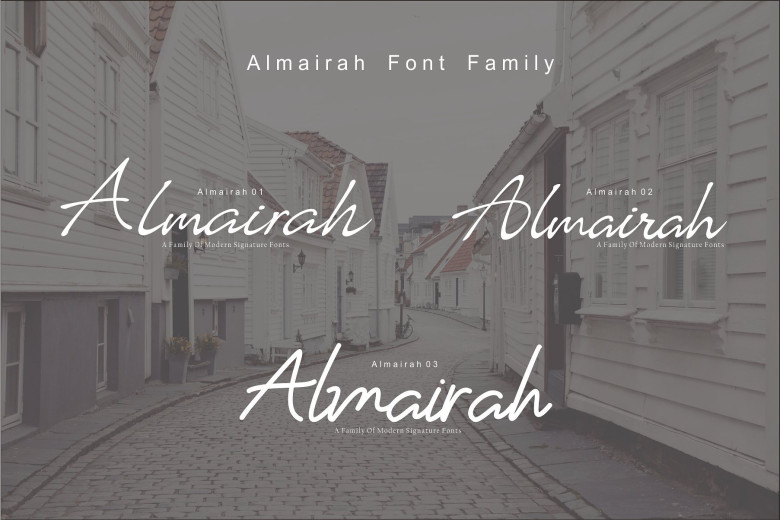
Almairah Script Font Family
A family of modern signature font. Introducing Almairah! It is designed and shared by Khoir. Almairah Family Font a classy signature font and there are three styling options. With freestyle flowing fonts this script looks elegant, classy, ​​easy to read, stylish, beautiful and easy to use. Almairah offers exquisite and fascinating typography harmony for diverse designs, including logos & branding, watermarks, posters, wedding designs, social media posts, advertisements, product designs & more.